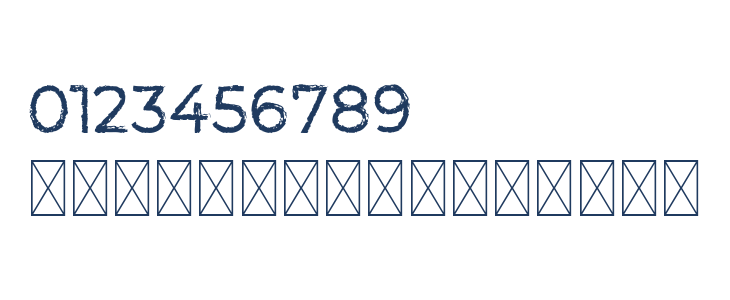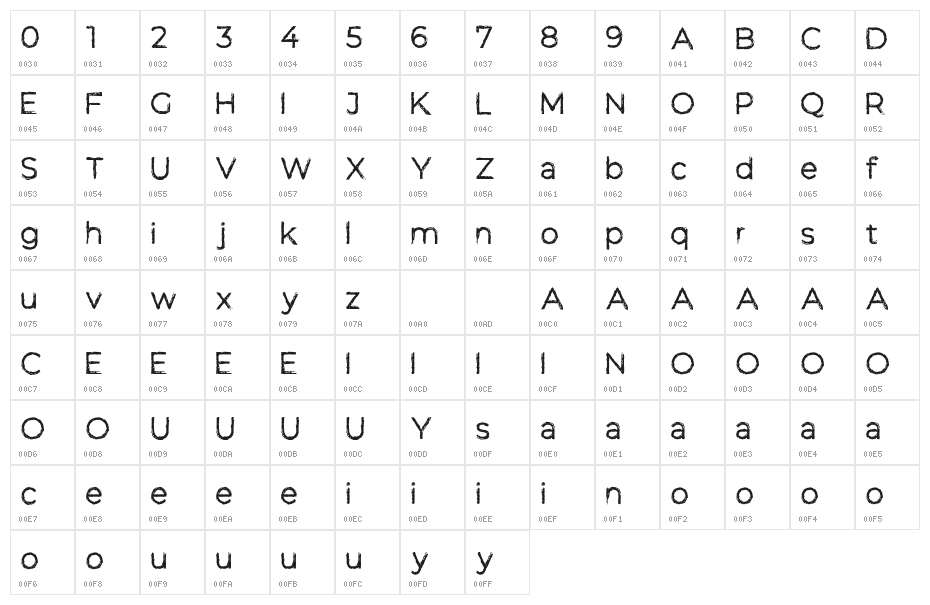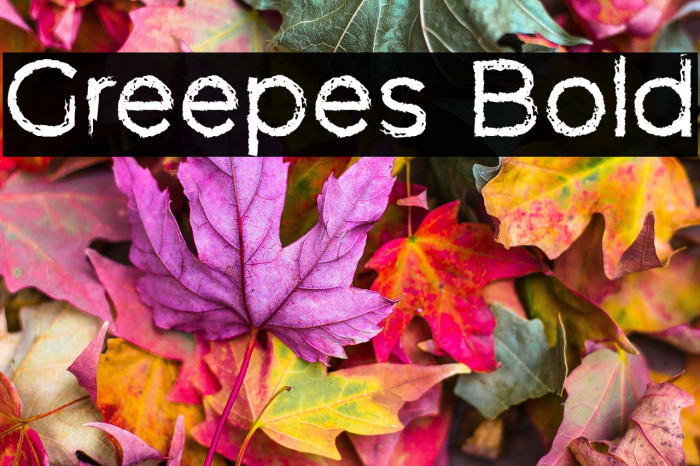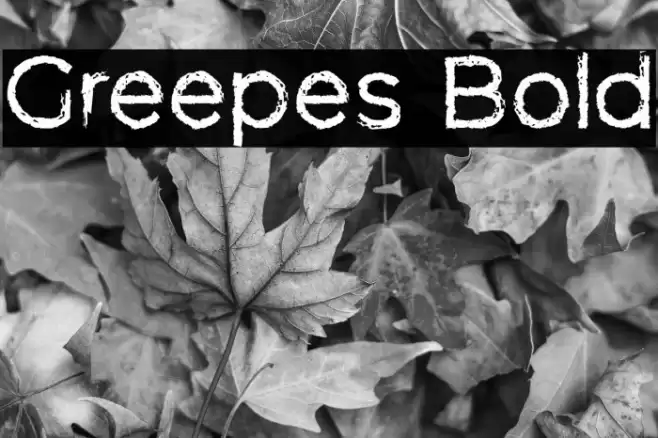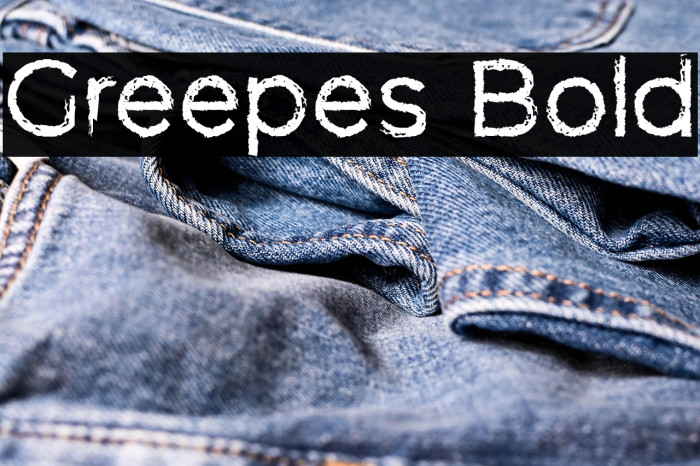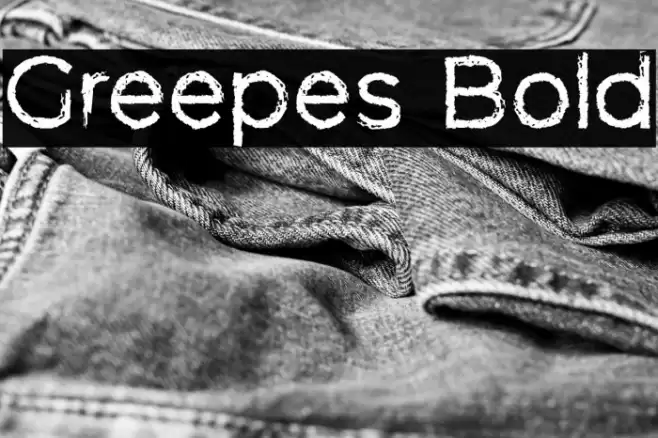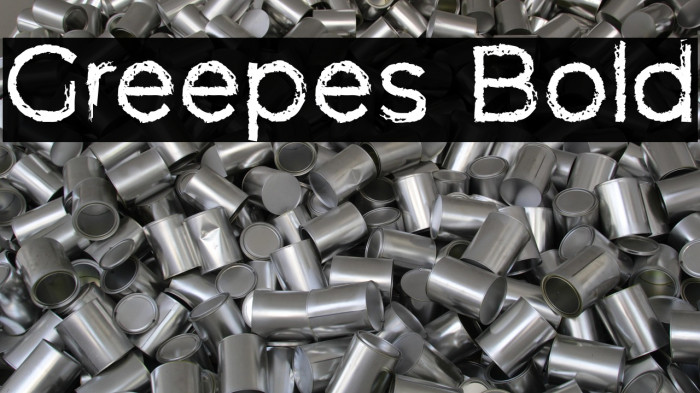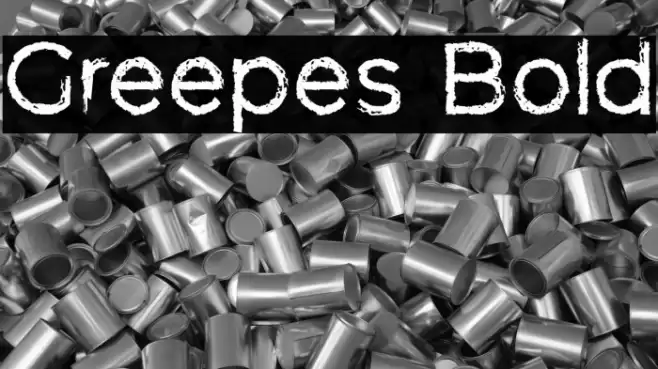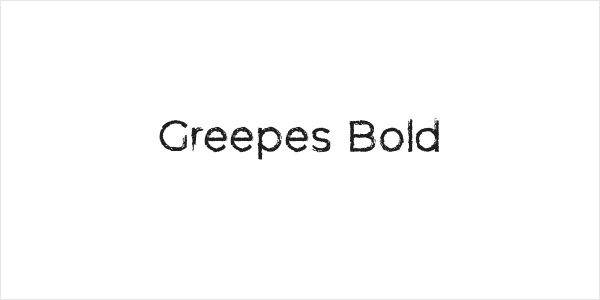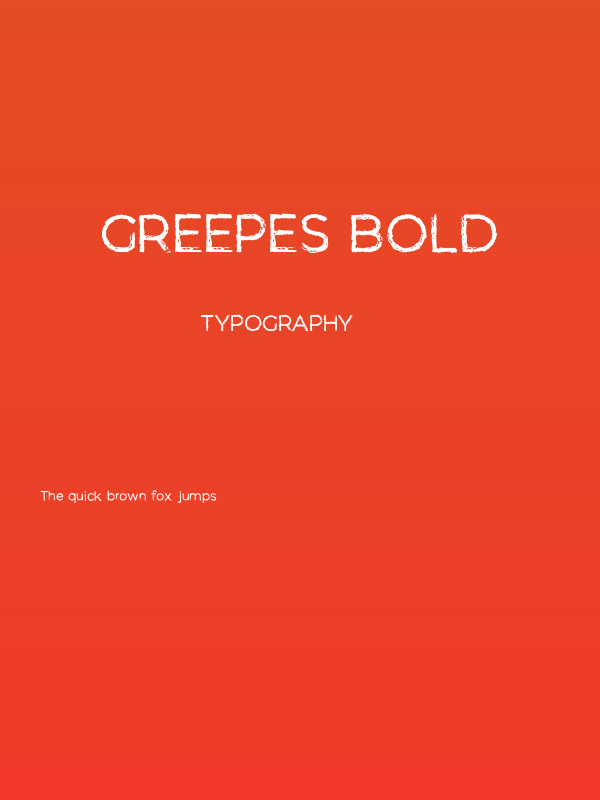
Greepes Bold Font
Greepes Bold Description
This font features a bold and textured appearance, with a distressed, grunge-like style that gives it a unique and edgy look. The characters are slightly irregular, adding to the hand-crafted feel. The strokes are thick and uneven, creating a sense of movement and dynamism. This font is perfect for projects that require a bold statement or an artistic touch. Its rough edges and bold presence make it stand out, while still maintaining legibility. The font's style is reminiscent of hand-drawn or painted letters, making it suitable for creative and unconventional designs.
| Use Case | Headlines, Logos, Artistic projects |
| Proposed Projects | Ideal for posters, album covers, artistic projects, and branding that requires a bold, edgy look. |